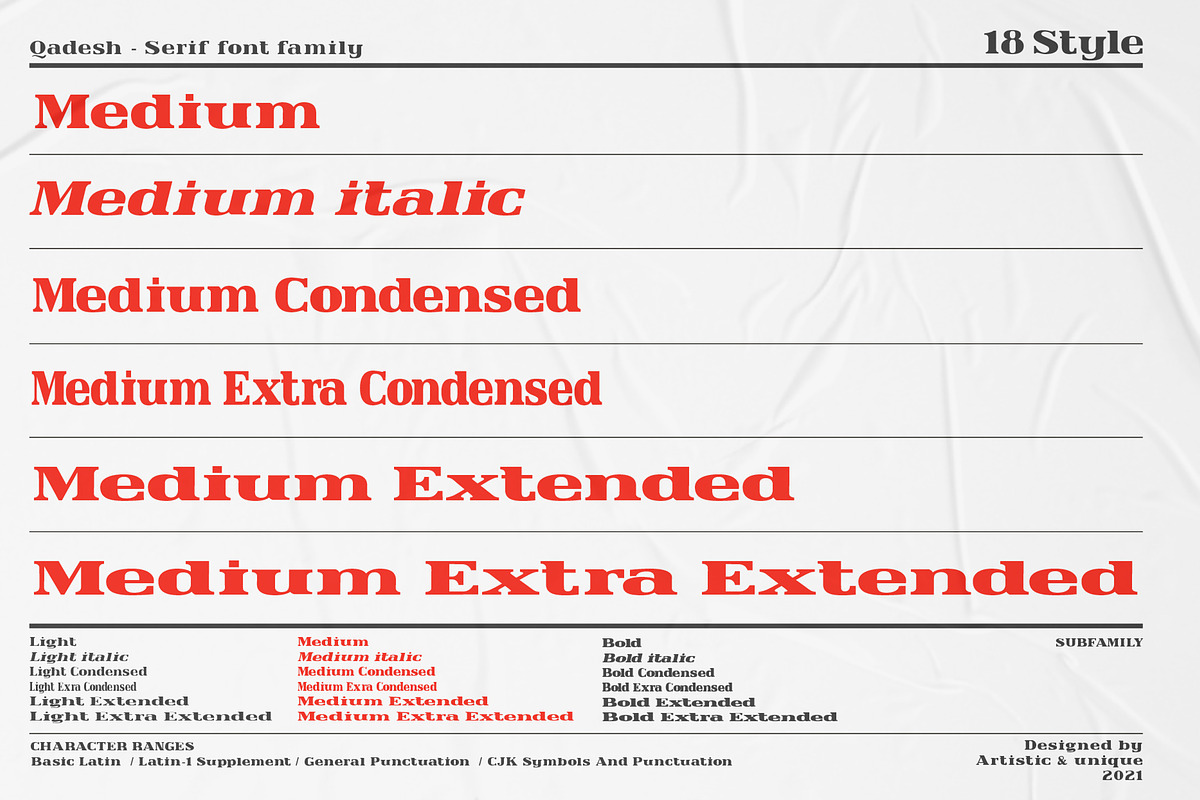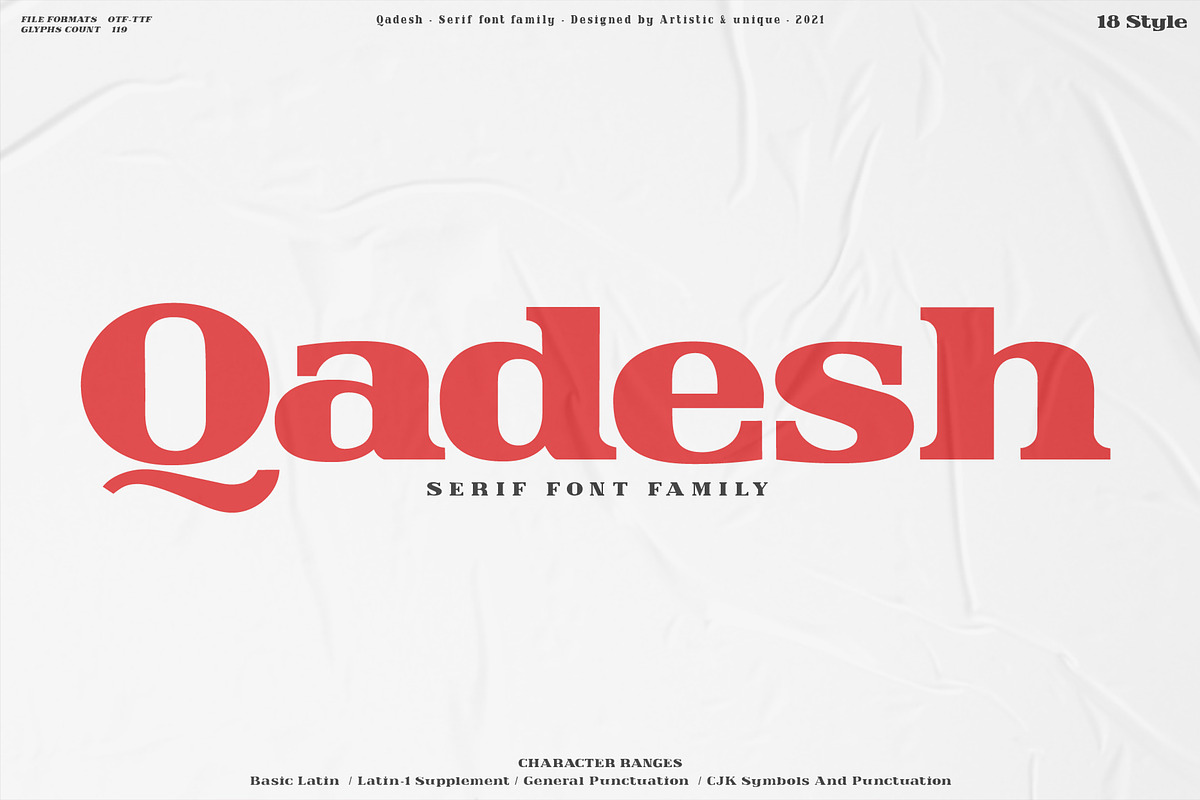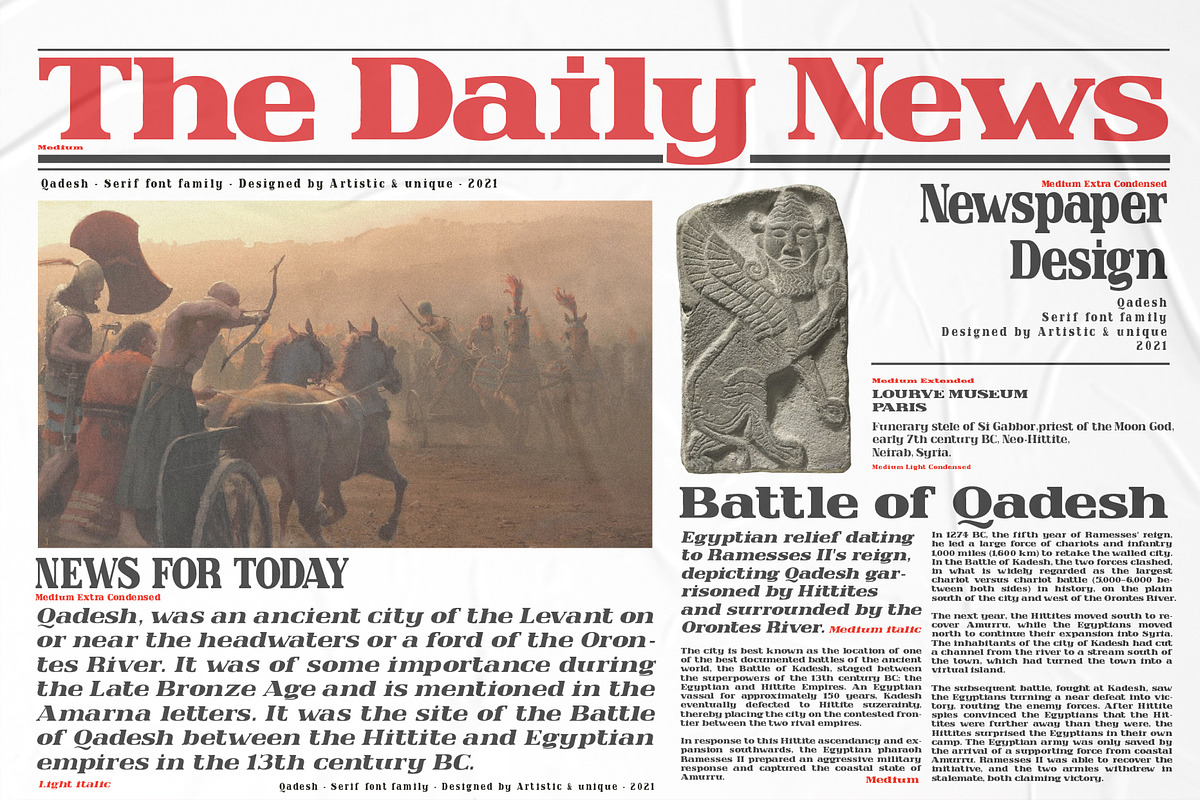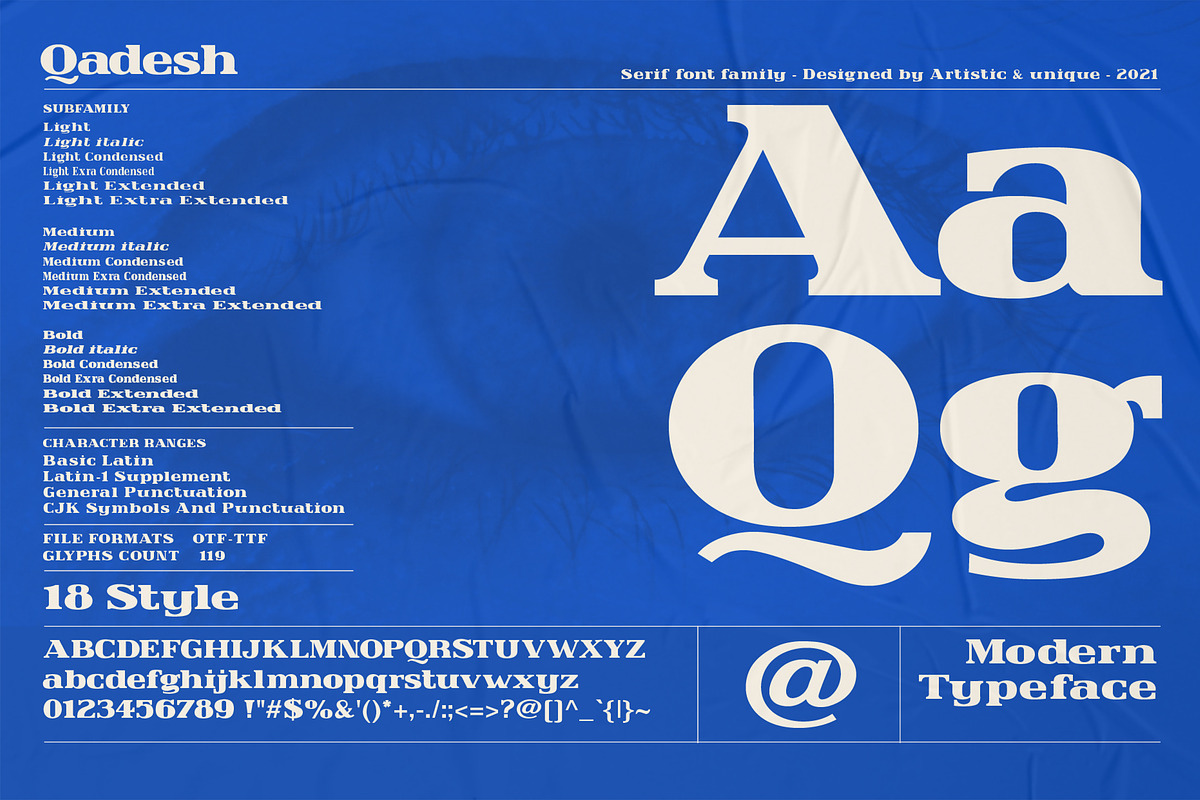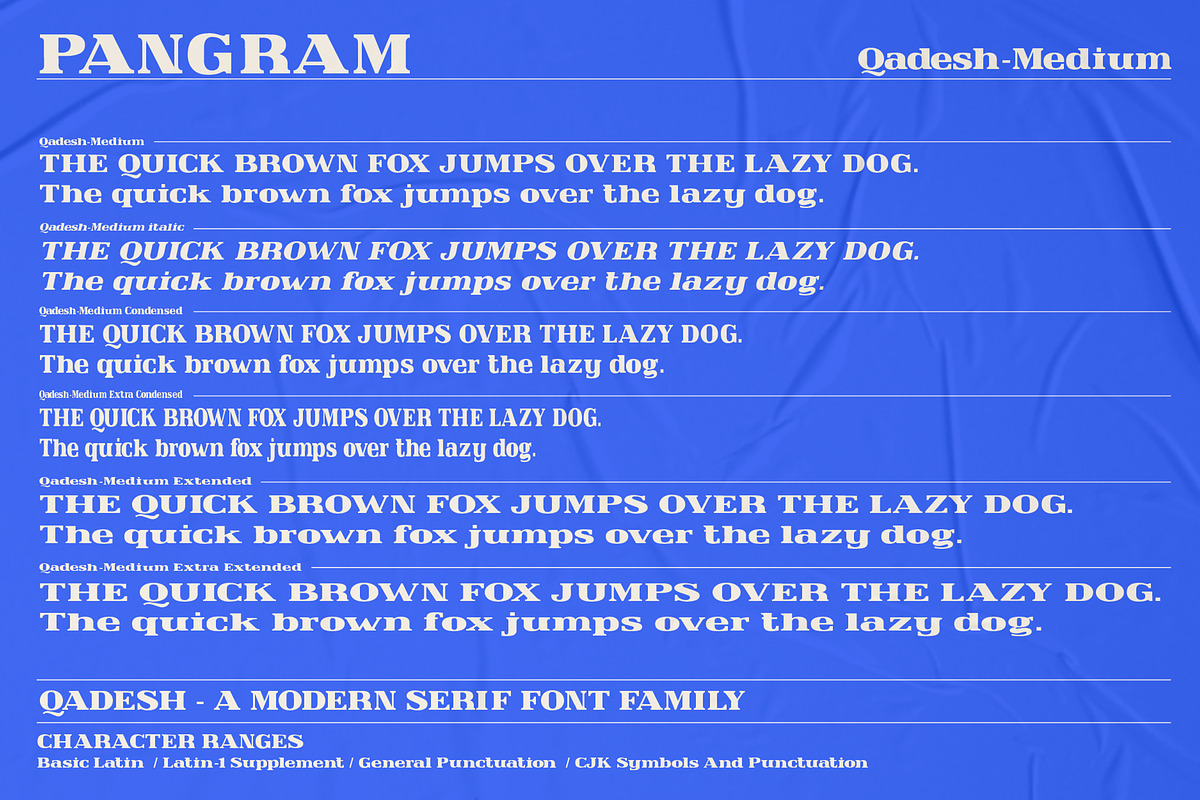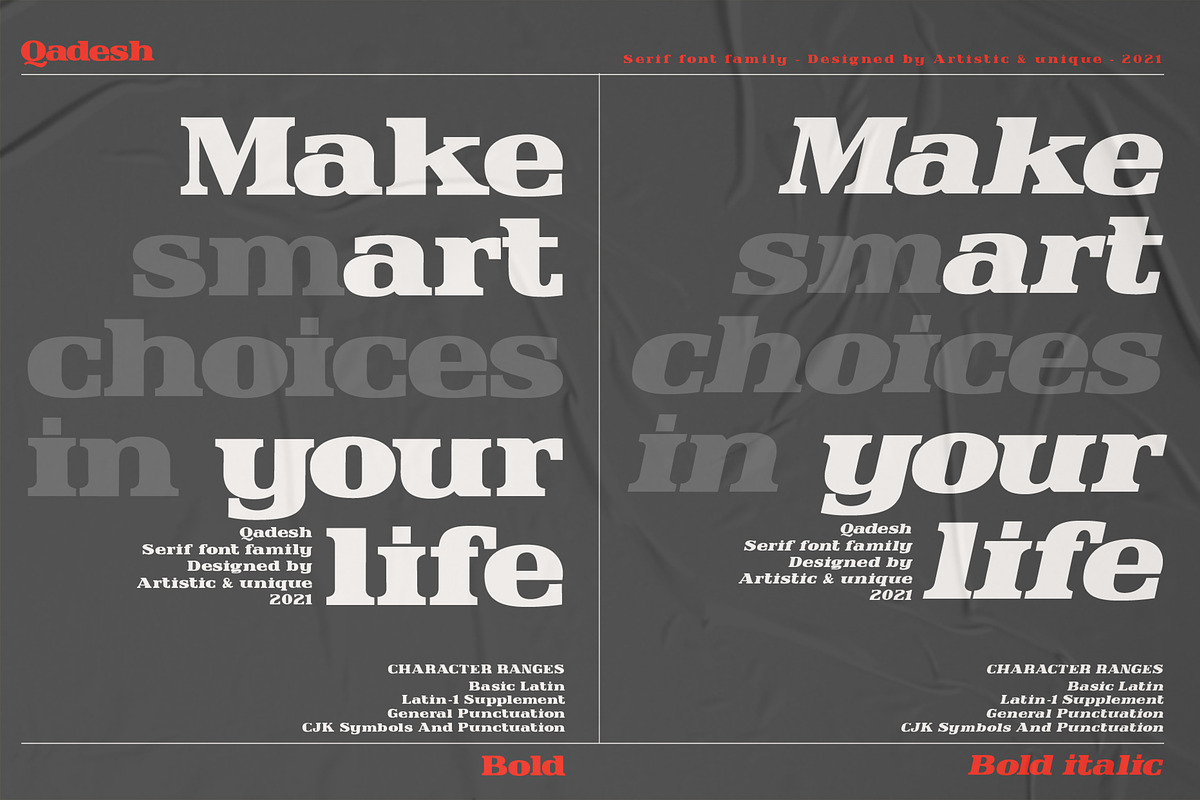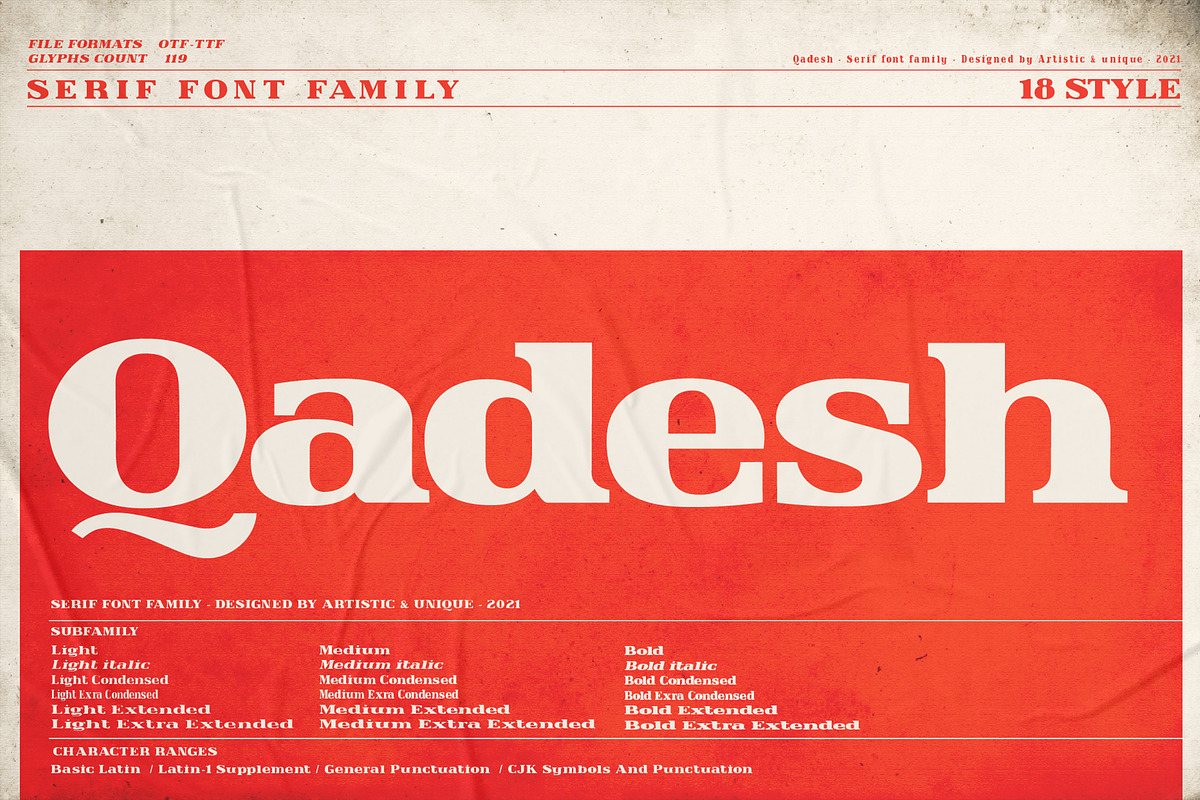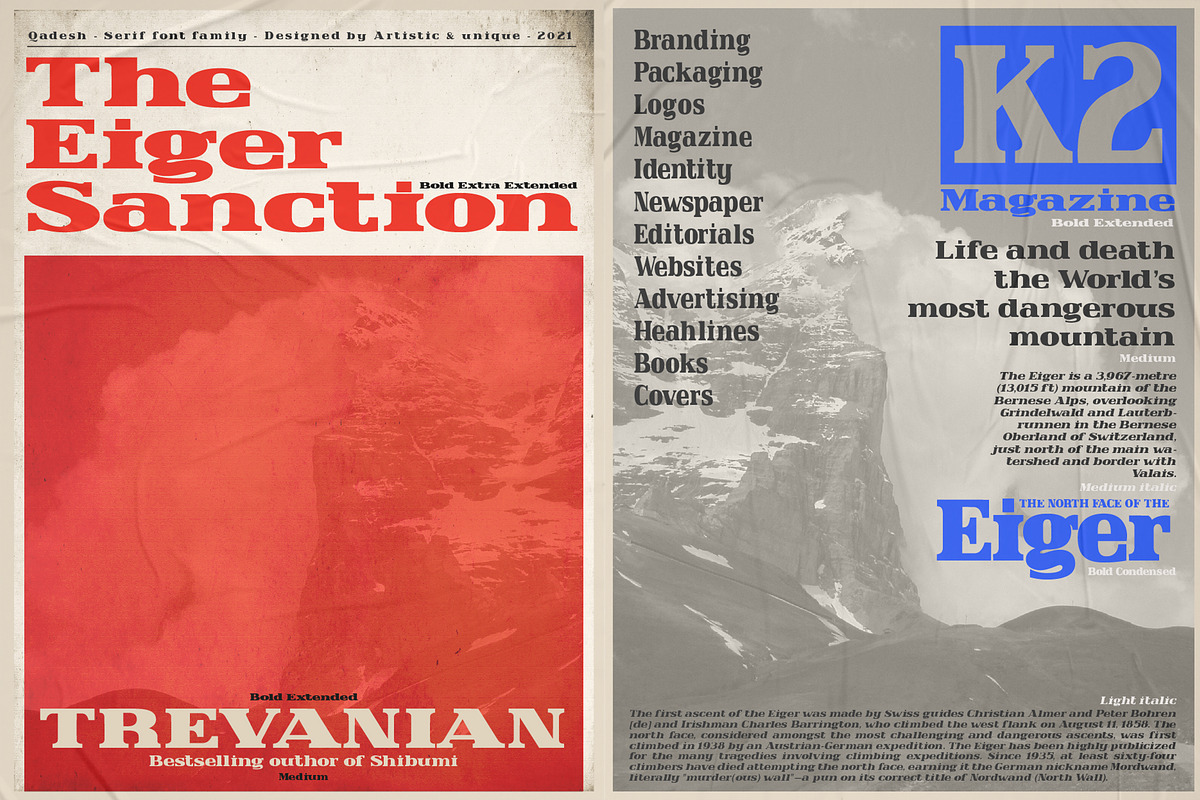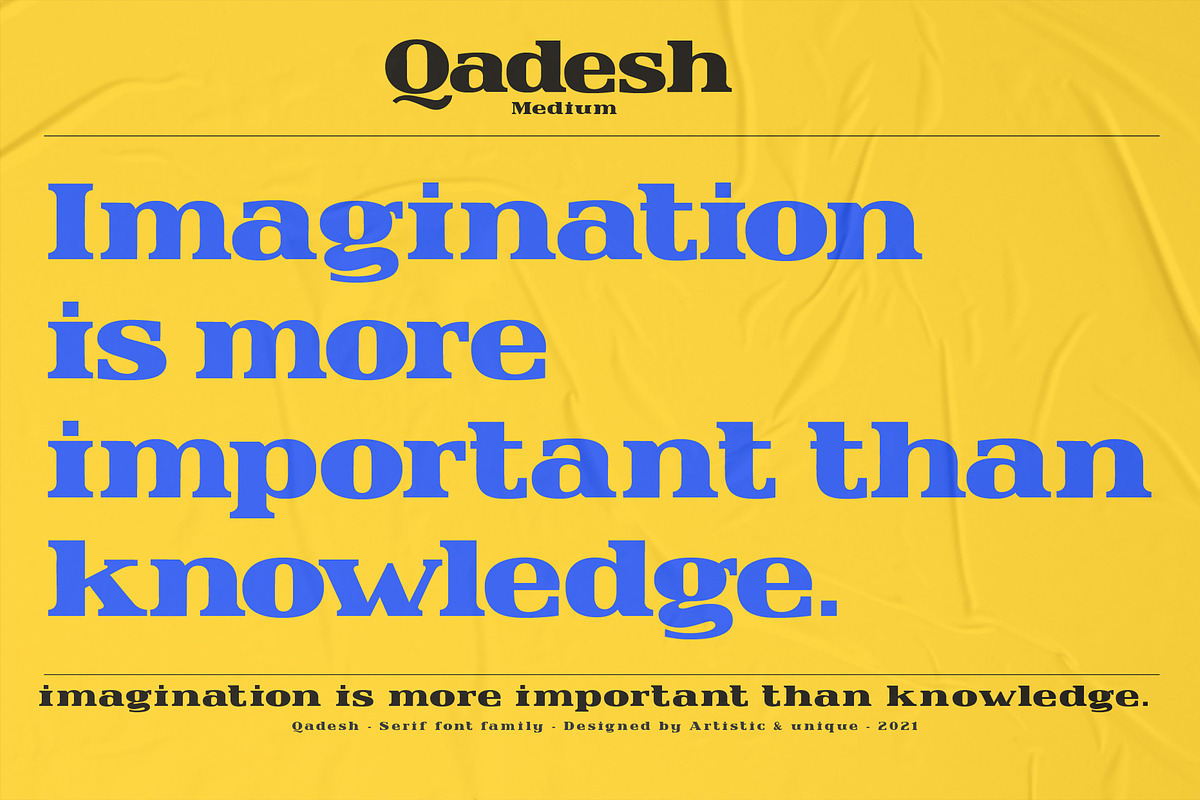
Qadesh - Serif font family
Qadesh is a modern serif font family. This font family consists of 18 different styles. With its different character designs, it can meet your needs in innovative pursuits. This feature makes Qadesh a versatile font family that can be used in many different design projects. You can create creative and stylish designs with uppercase and lowercase letter combinations in the title and text.
It has a timeless structure where you can create your modern-elegant or classic design alternatives.
Great for books and magazines, editorials, headlines, websites, logos, branding, advertising and more. The Qadesh font family can meet your needs in all modern and classic creative projects.
- Uppercase typeface
- Lowercase typeface
With this font you can create your unique designs.